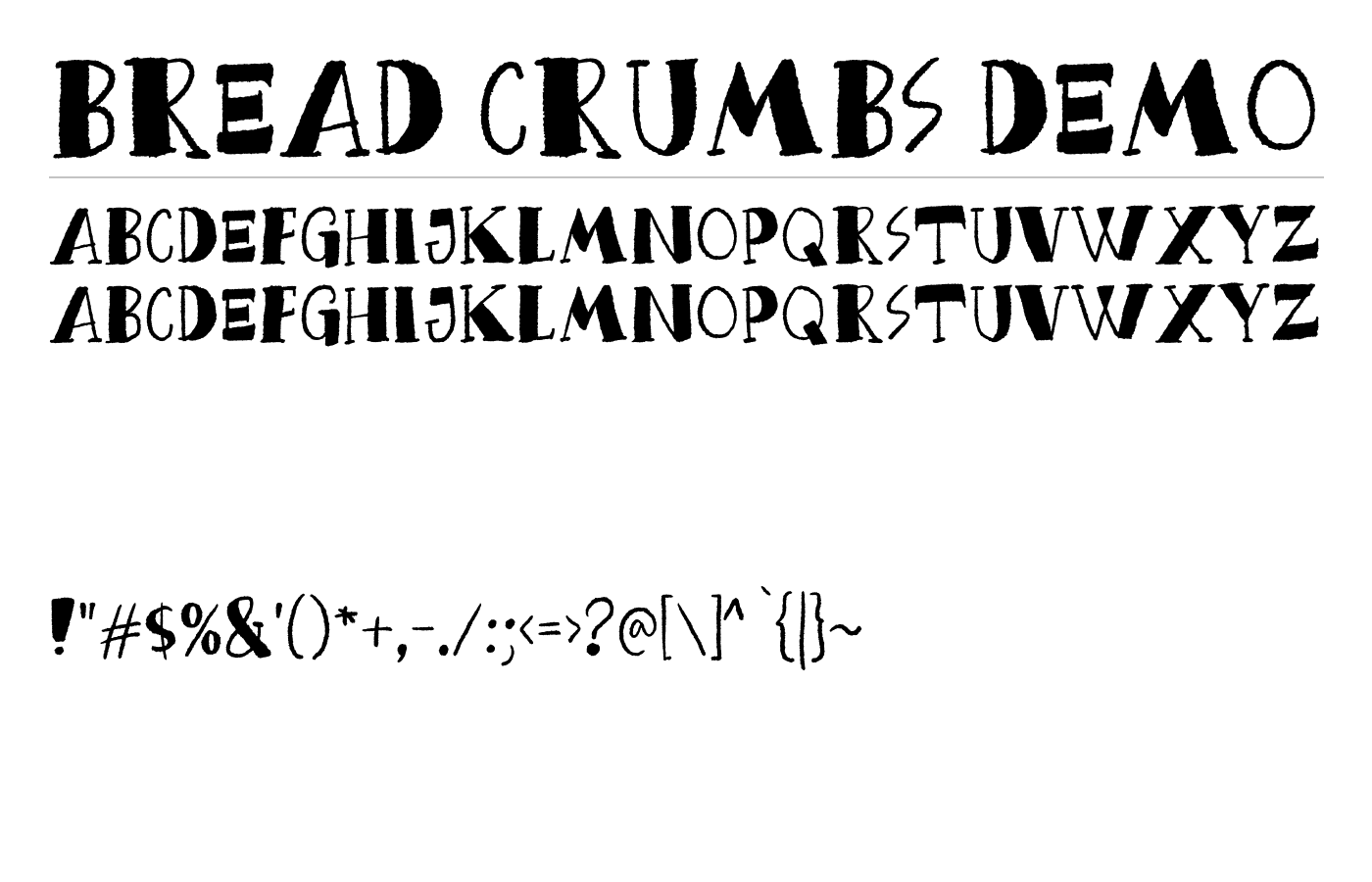
Bread Crumbs DEMO is a playful, hand-drawn serif font with uneven strokes and quirky letterforms that give it a whimsical, artistic character. Its mix of thick and thin strokes, combined with irregular shapes and expressive details, make it perfect for creative projects that need a casual yet distinctive touch, such as posters, craft branding, or editorial headlines. This font brings a lively, handmade feel that communicates friendliness and creativity with every letter.
Bread Crumbs DEMO Font
About Bread Crumbs DEMO Font